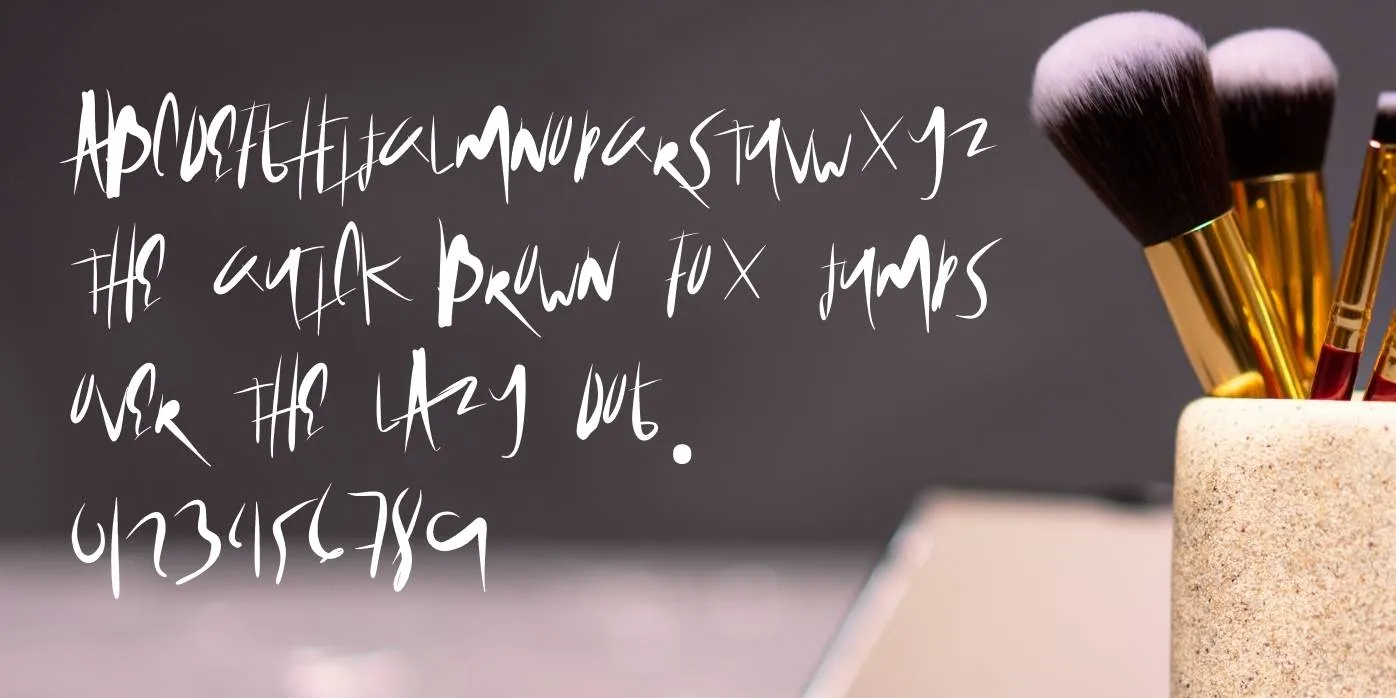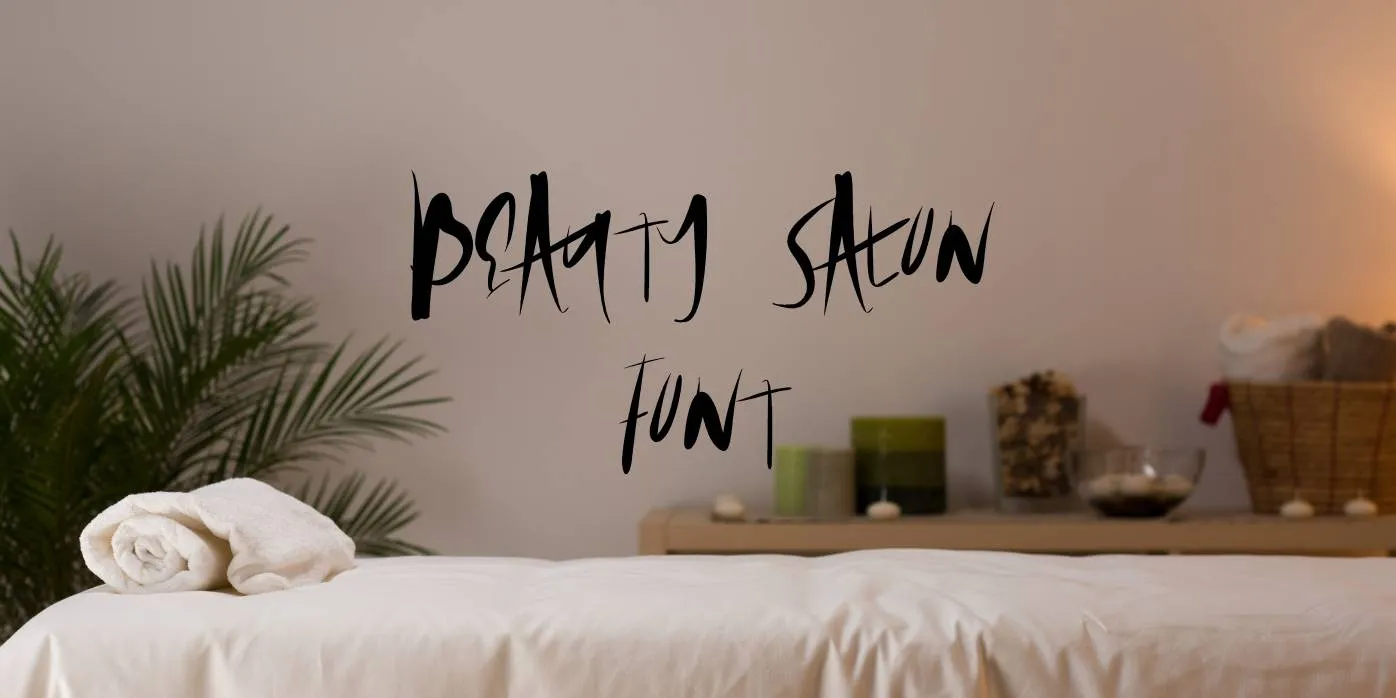
Beauty Salon Font
Introducing the most freaking style with unusual shape typeface that known as Beauty Salon font. The result of this typeface provides a very unique textual shape to your design. The designer of this extraordinary font is Xerographer Fonts. The characters of this ultimate font are seemed pretty bizarre.
The font family contains only in the regular style. It has TrueType Features and you can download easily from our website. If you want to use it for commercial purposes please contact the author. Beauty Salon Font consists of Uppercase only, it also has numbers and numerals and some useful symbols, etc.  The characters of this font produce special results for your design projects.
This is a very famous font and many downloaders due to its script-style characters and individual symbols.